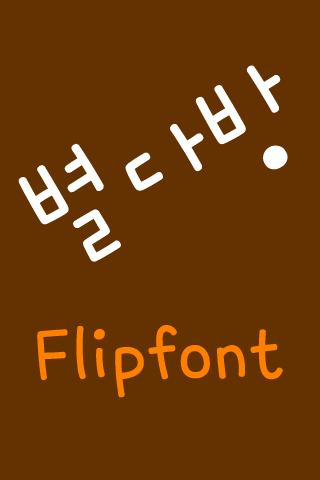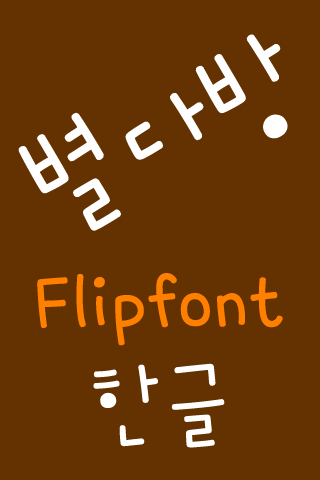
NeoByeolcoffee Korean Flipfon
Description of NeoByeolcoffee Korean Flipfon
Flipfont™ changes the user interface font on your phone.
NeoByeolcoffee™ Korean Flipfont
Tilted to the left of the font type emphasize the difference is a font.